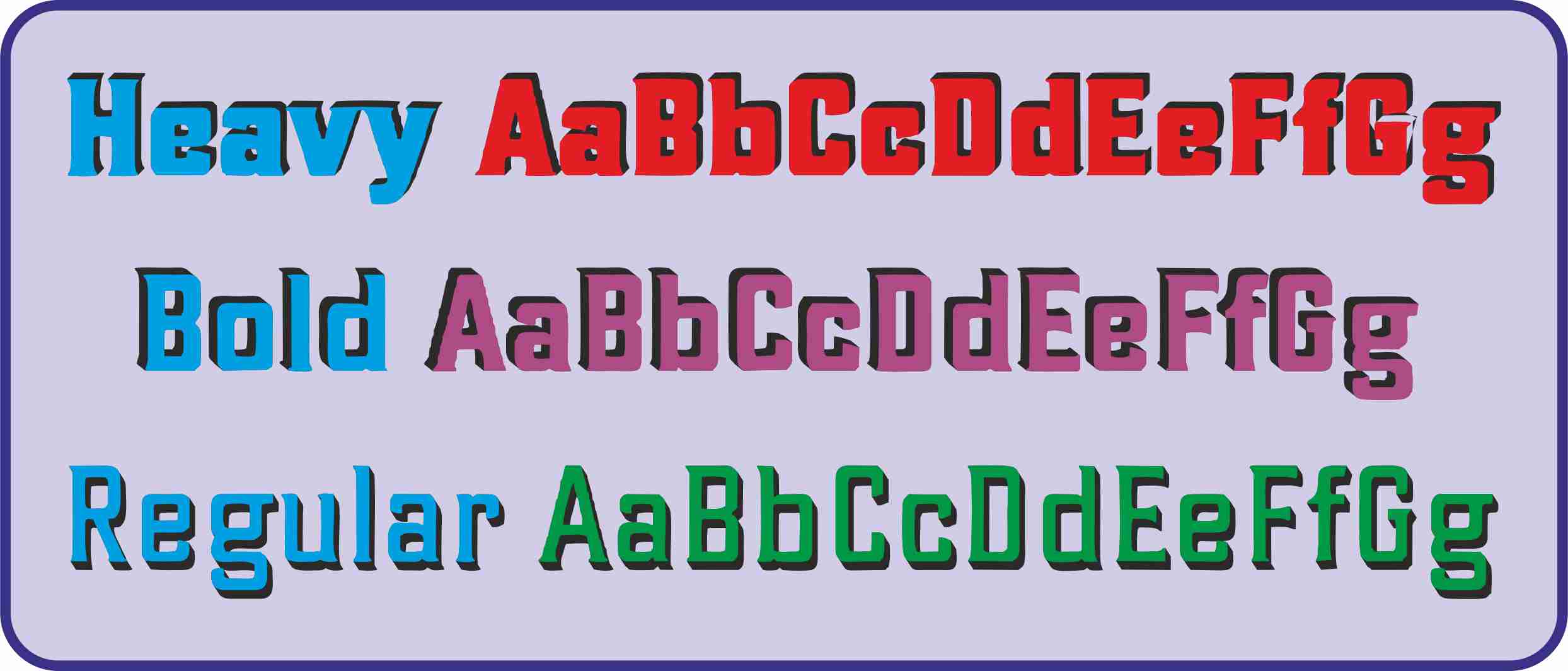
Upperplate Font
Upperplate Font is perfect for industrial manufacturing branding, heavy equipment signage, construction company logos, automotive parts packaging, steel fabrication graphics, mechanical engineering documentation, warehouse facility materials, mining company presentations, infrastructure project signage, and robust machinery advertisements. This powerful typeface excels in applications where industrial strength, mechanical precision, and heavy-duty reliability are fundamental brand messaging elements.
What makes Upperplate Font exciting is its commanding presence that perfectly captures the essence of heavy industrial manufacturing through bold, plate-like letterforms that appear forged from solid steel. The font features robust character construction with strong horizontal emphasis and mechanical details that immediately convey durability and industrial capability. Its authoritative weight and systematic design approach make it ideal for brands that need to project unwavering strength and professional competence in demanding industrial environments where reliability is literally a matter of safety.
The Upperplate Font family typically includes multiple weights from Medium to Ultra Bold, often featuring condensed variations that maximize impact in space-constrained industrial applications. Many versions include extended character sets with technical symbols, engineering notation marks, and specialized punctuation commonly used in manufacturing and construction documentation. Some collections feature stencil variations and weathered effects that enhance the authentic industrial aesthetic for specialized heavy-duty applications and safety signage.
Whether you're developing brand identities for manufacturing companies, creating technical documentation for industrial processes, or designing materials for heavy construction projects, Upperplate Font Free Download delivers the commanding industrial authority that heavy-duty brands require. Its no-nonsense character makes it ideal for businesses operating in environments where strength, durability, and reliability are not just preferences but absolute necessities. The font's ability to convey both technical competence and industrial toughness makes it particularly valuable for B2B companies in manufacturing, construction, and engineering sectors seeking to establish trust with clients who depend on proven performance and unwavering quality in mission-critical industrial applications.